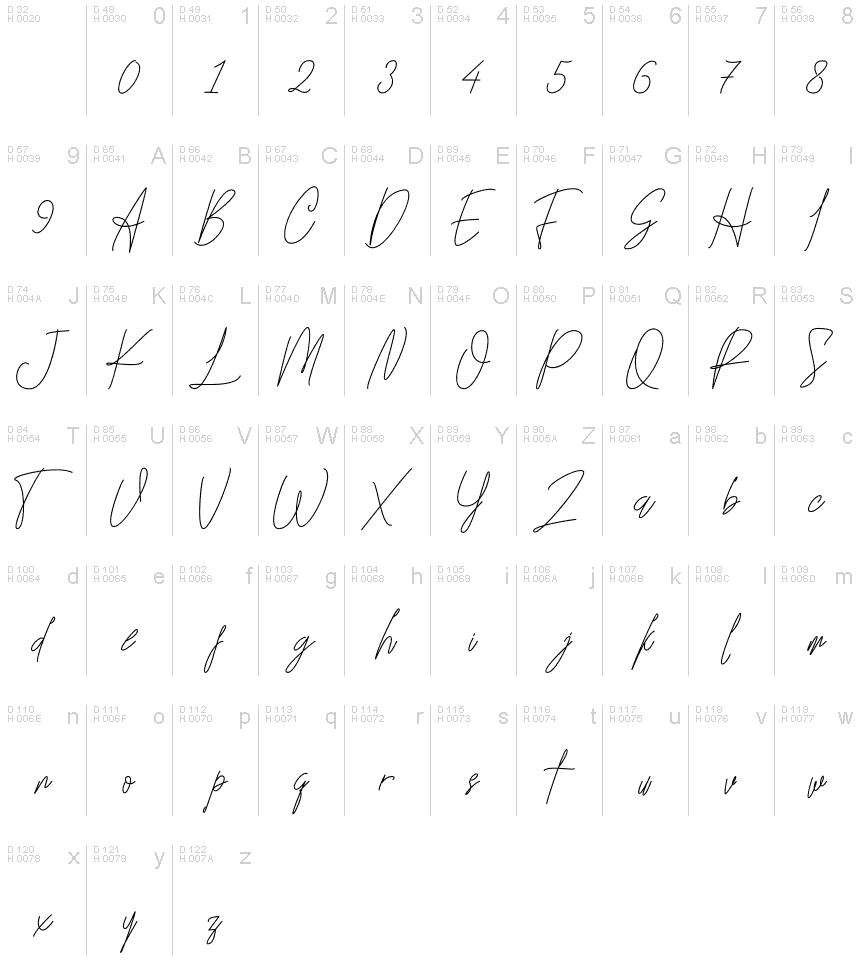
Mika Tamrin
Mika Tamrin font designed by fiqiart is a stunning handwritten font.It features a variable baseline, smooth lines, gorgeous glyphs and stunning alternations.